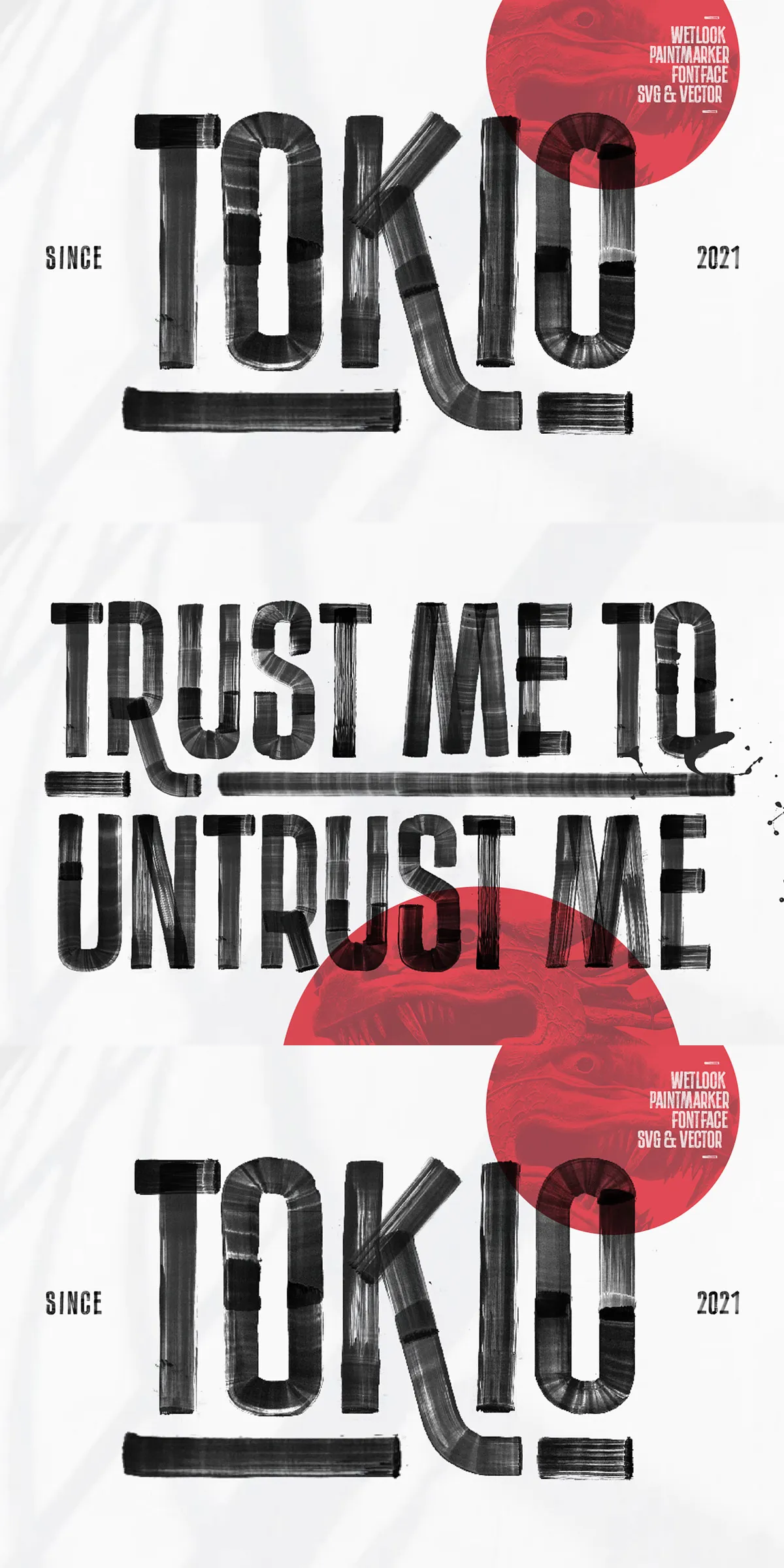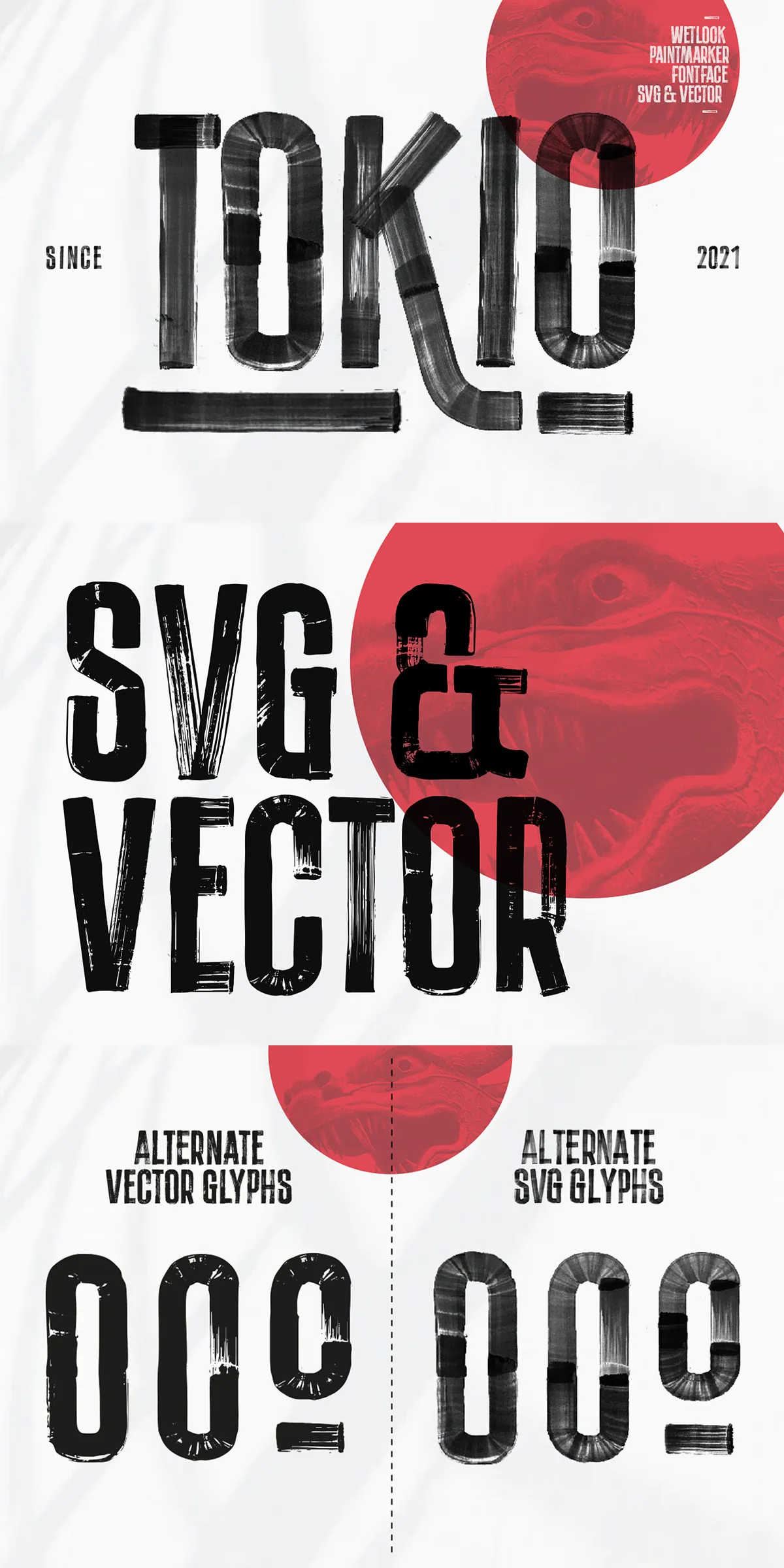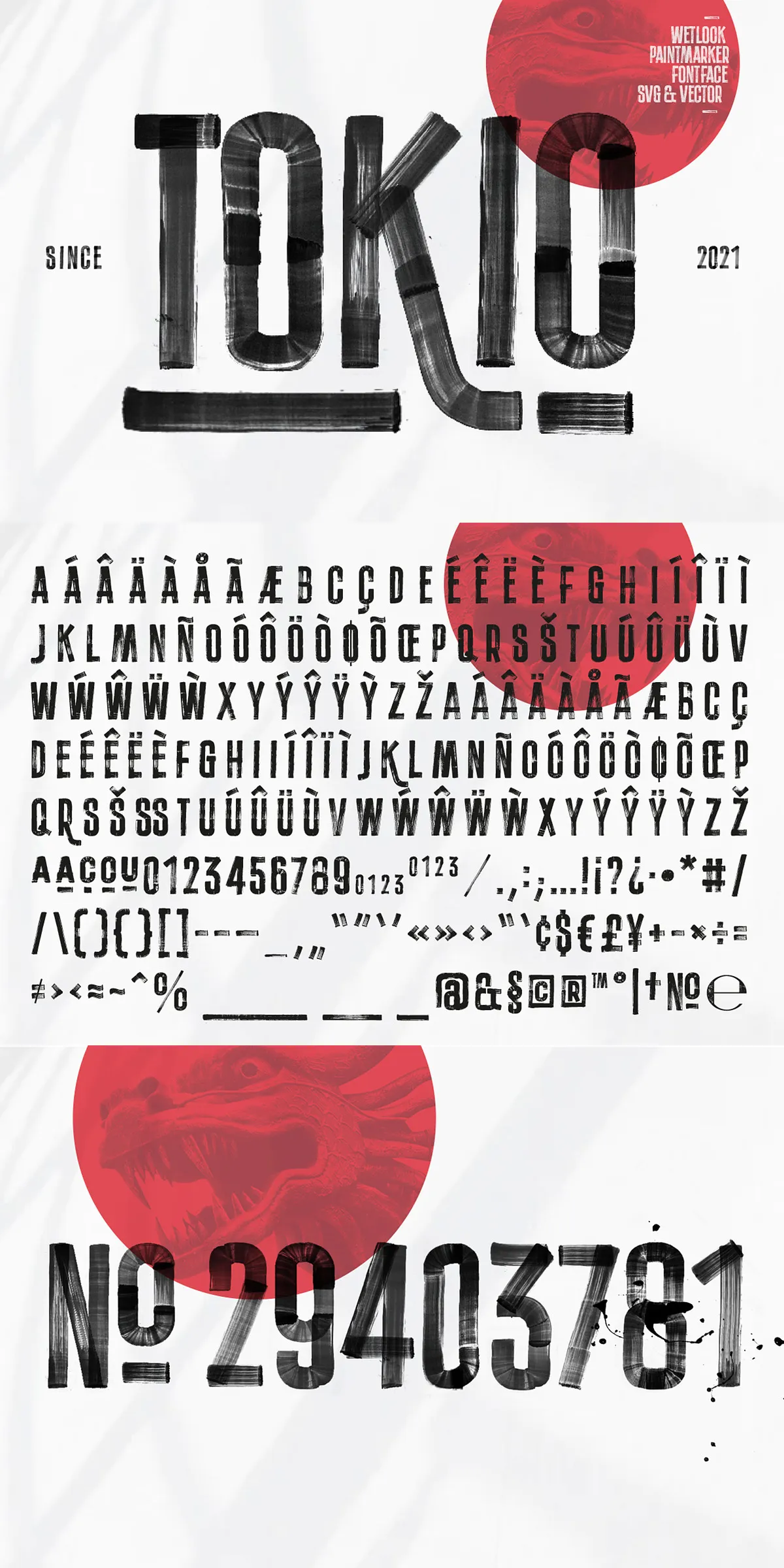
Step boldly into the world of urban expression with Tokio Marker — a high-impact vector typeface that captures the vivid, glossy texture of a real paint marker applied to a smooth surface. Designed for digital creators who crave authentic, hand-inspired energy, Tokio Marker brings the rebellious spirit of street art into your design toolkit with precision, clarity, and unmatched visual presence.
Brushstroke Precision, Digital Perfection
Authentic Paint Marker Aesthetic in Vector Format
Tokio Marker isn’t just a font — it’s a digitally rendered imitation of a physical brushstroke, meticulously crafted to reflect the thick, waxy lines, subtle texture, and glossy sheen of a marker on glass, plastic, or metal. Every curve, stroke, and edge is optimized to simulate real-world material behavior while maintaining perfect scalability across resolutions. Whether you’re designing a skate deck logo, a concert poster, or a social media banner, Tokio Marker delivers a tactile visual experience like no other.
Dynamic Lowercase Alternates — A Design Secret Revealed
Lowercase Letters Are Hidden Gems in Uppercase Glyphs
One of Tokio Marker’s most powerful design features? The lowercase letters are hidden within the uppercase glyphs as **alternate forms** — giving you full creative control without bloating the character set. This allows you to:
- Use uppercase letters for maximum impact in headlines.
- Access lowercase versions through stylistic alternates for subtle, balanced text blocks.
- Layer and combine styles for unique typographic compositions.
This clever design choice streamlines your workflow while unlocking advanced typographic flexibility — ideal for branding, signage, and editorial design where style and function must work in harmony.
Tokio Marker becomes more than a font — it becomes a living, breathing visual element.
- Stylistic alternates — Access different stroke weights, terminal ends, and decorative flourishes.
Use Cases That Ignite Creativity
Where Tokio Marker Comes Alive
Perfect for:
- Streetwear & fashion branding — make your logo scream with raw, urban energy.
- Concert posters & gig promotions — command attention with bold, glossy typography.
- Web UI & app design — use SVG version for interactive, eye-catching buttons and headlines.
- Merchandise & merchandise design — ideal for t-shirts, mugs, stickers, and stickers with high visual impact.
- Animated graphics — animate stroke reveals, color shifts, or texture overlays with ease.
Let Tokio Marker be the voice of your brand’s attitude — loud, bold, and impossible to ignore.